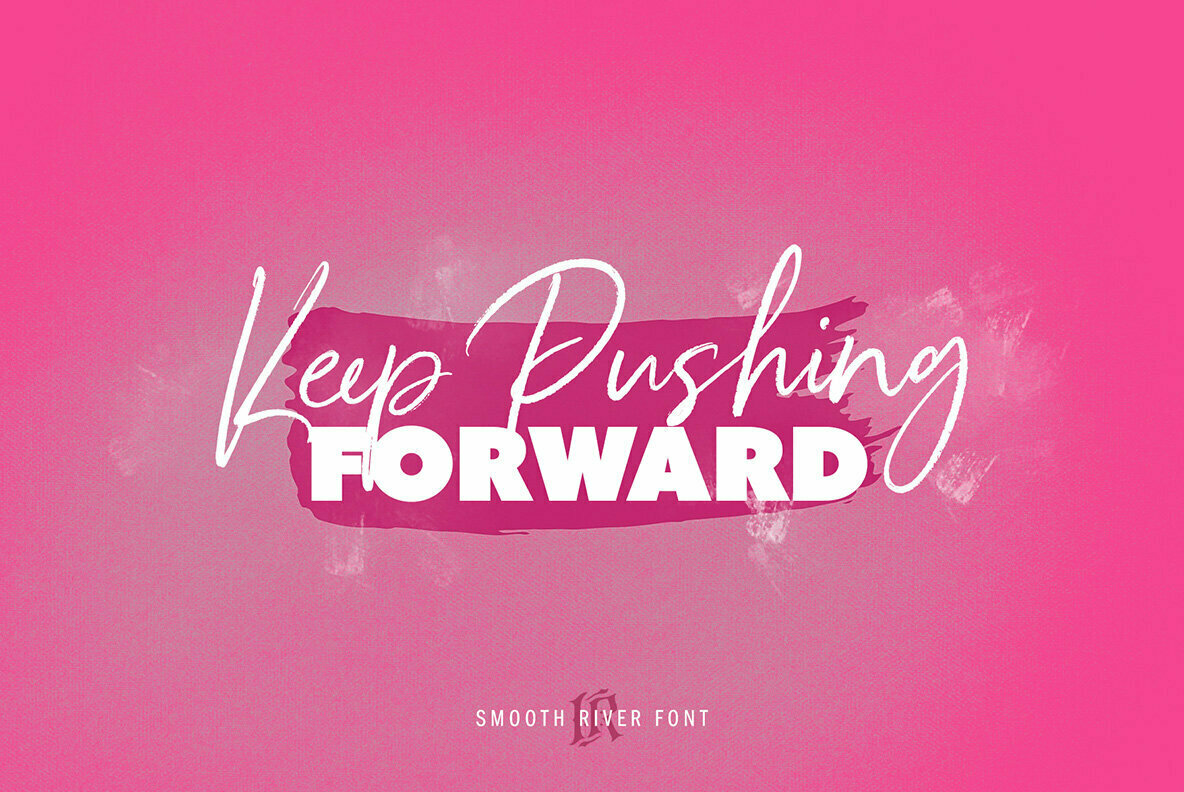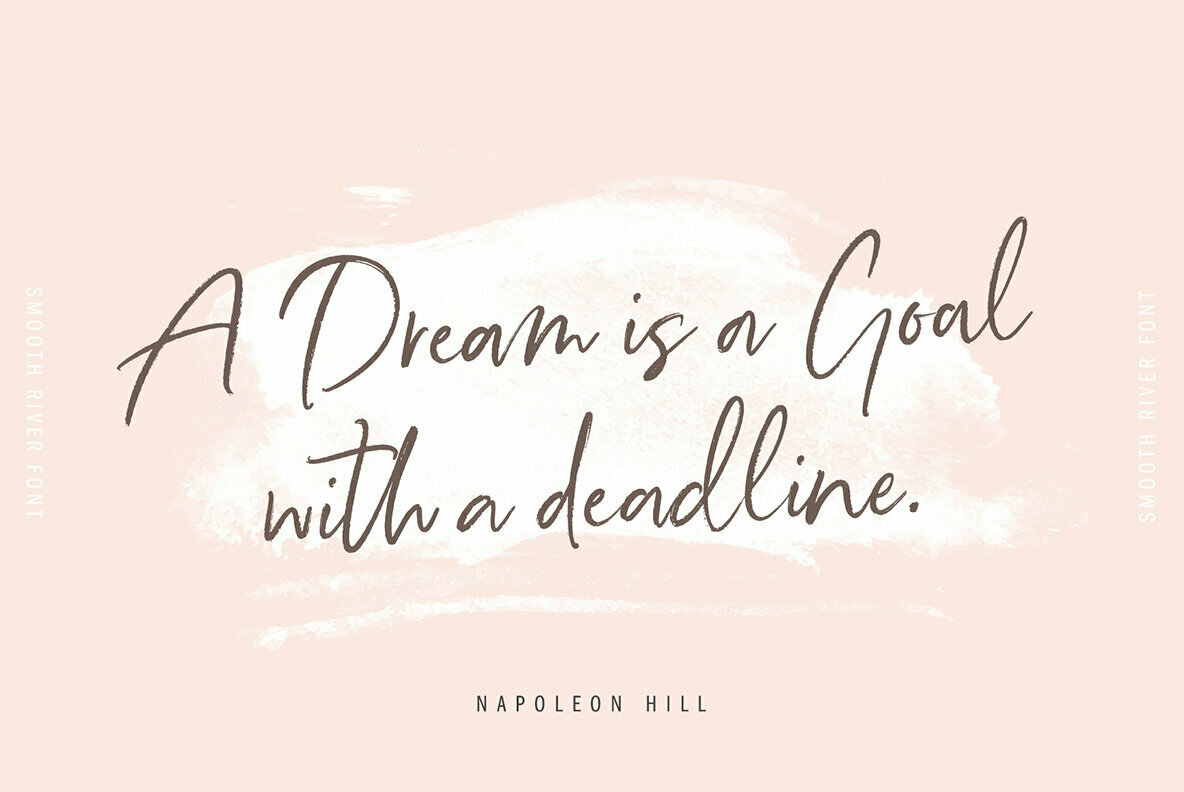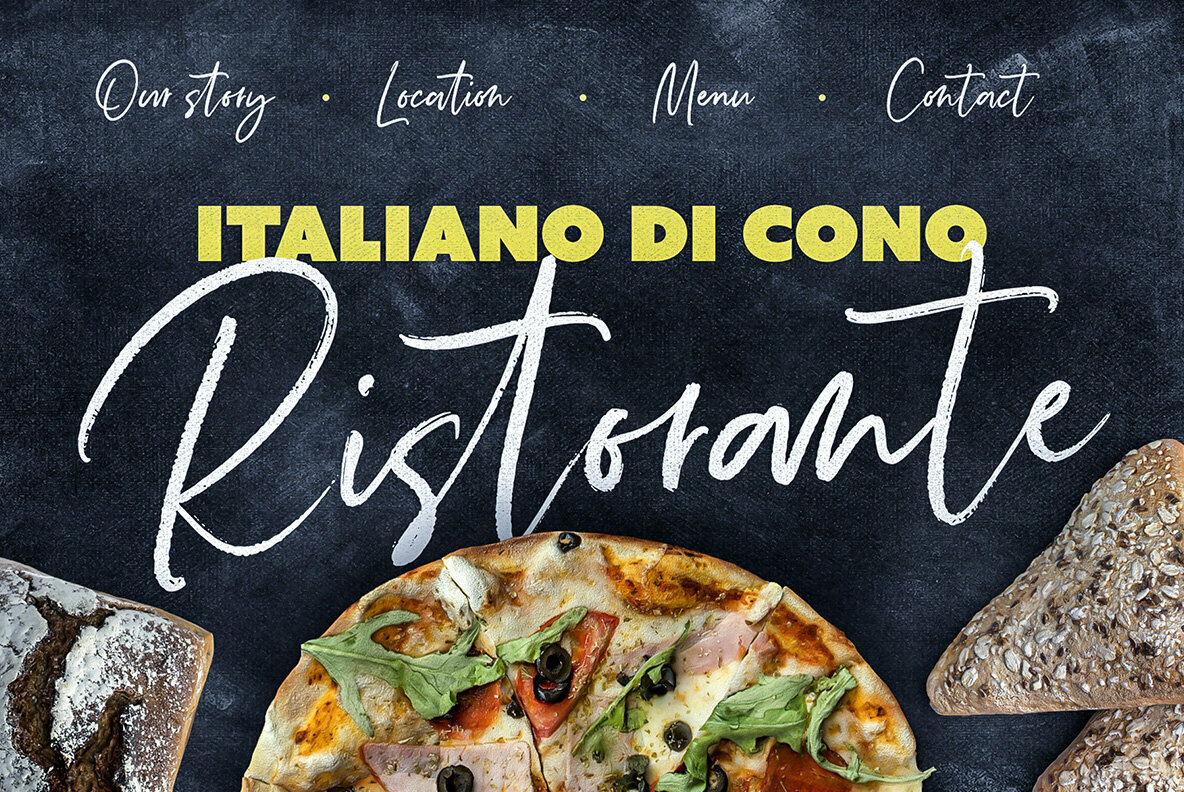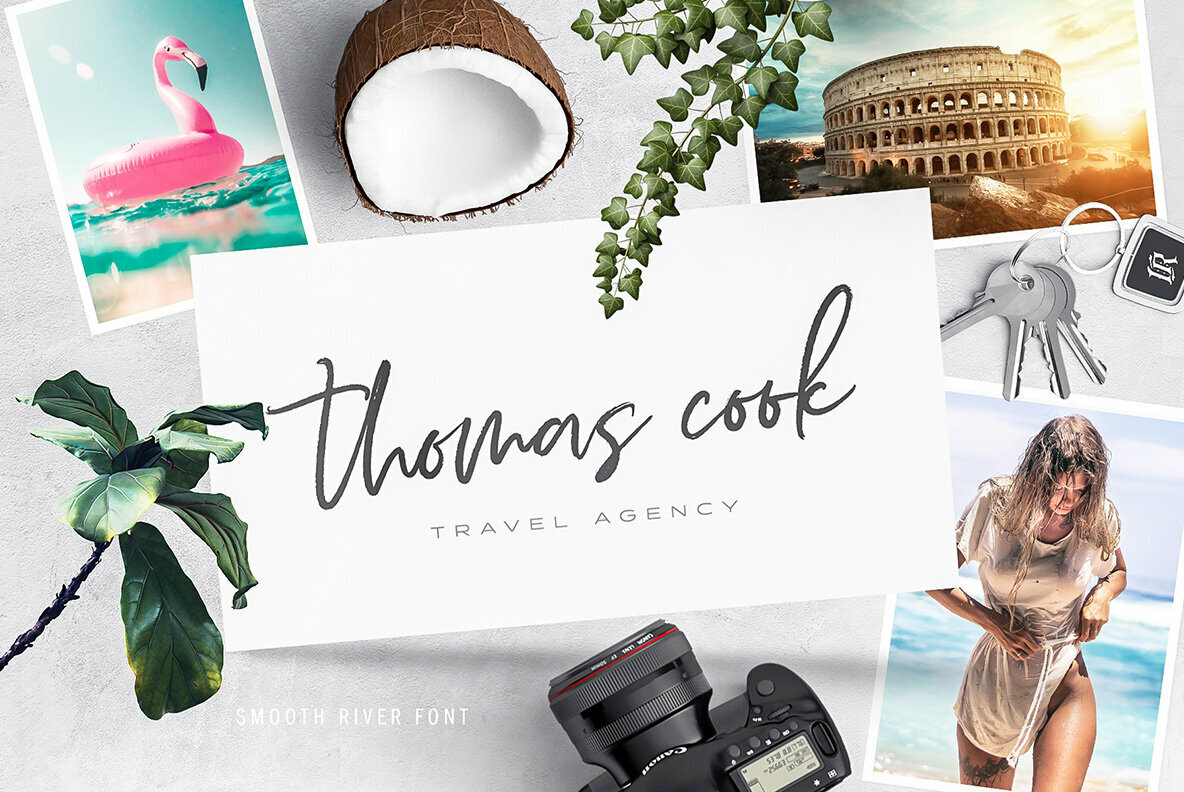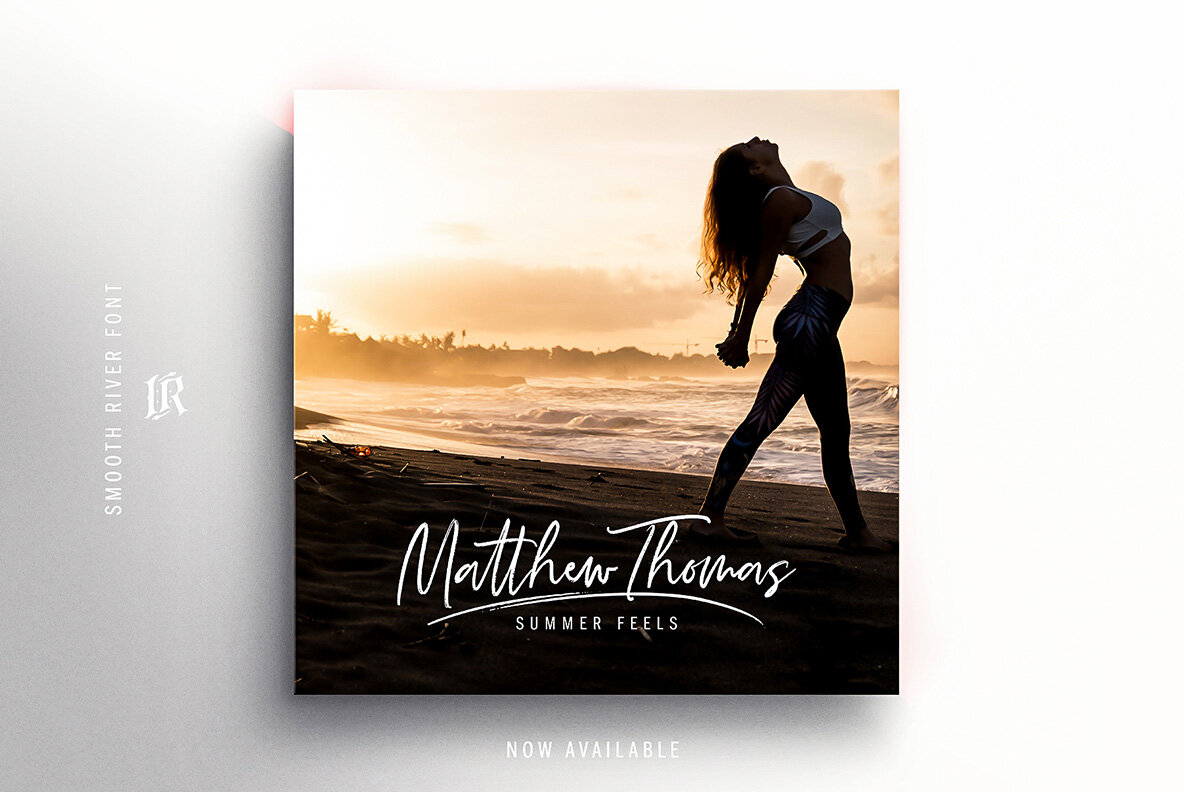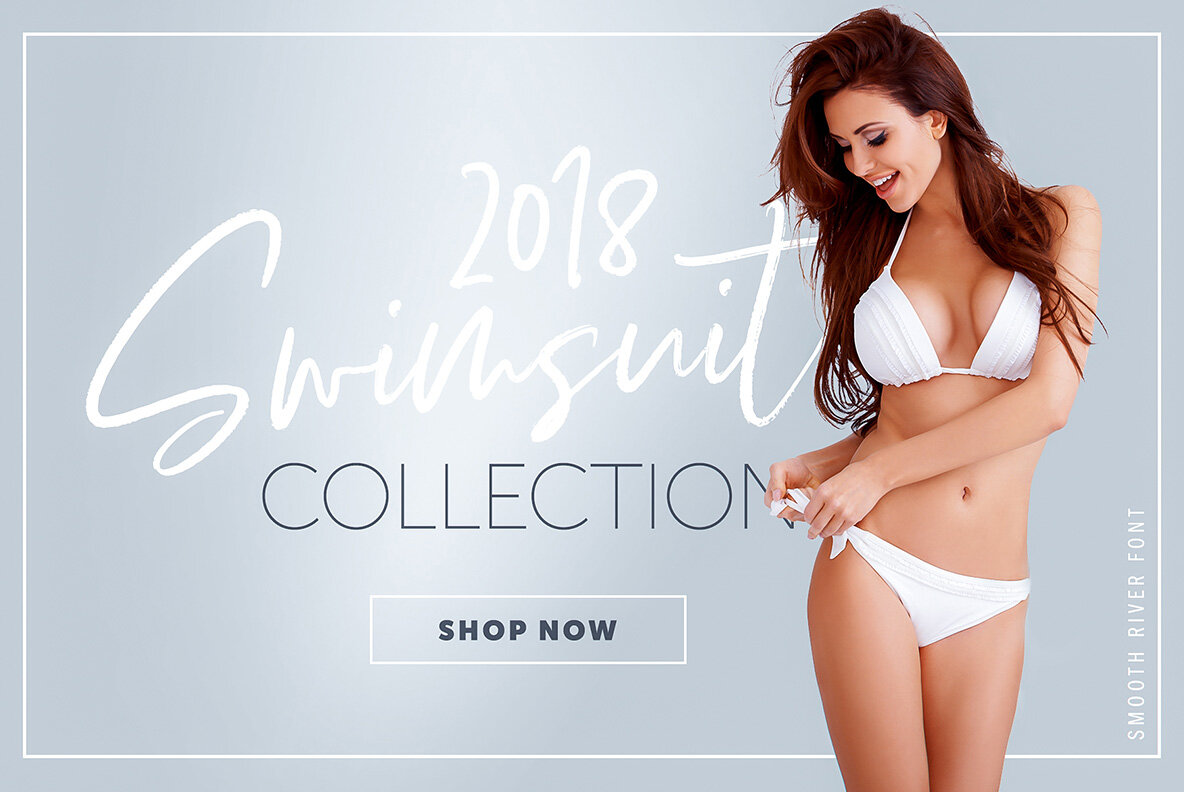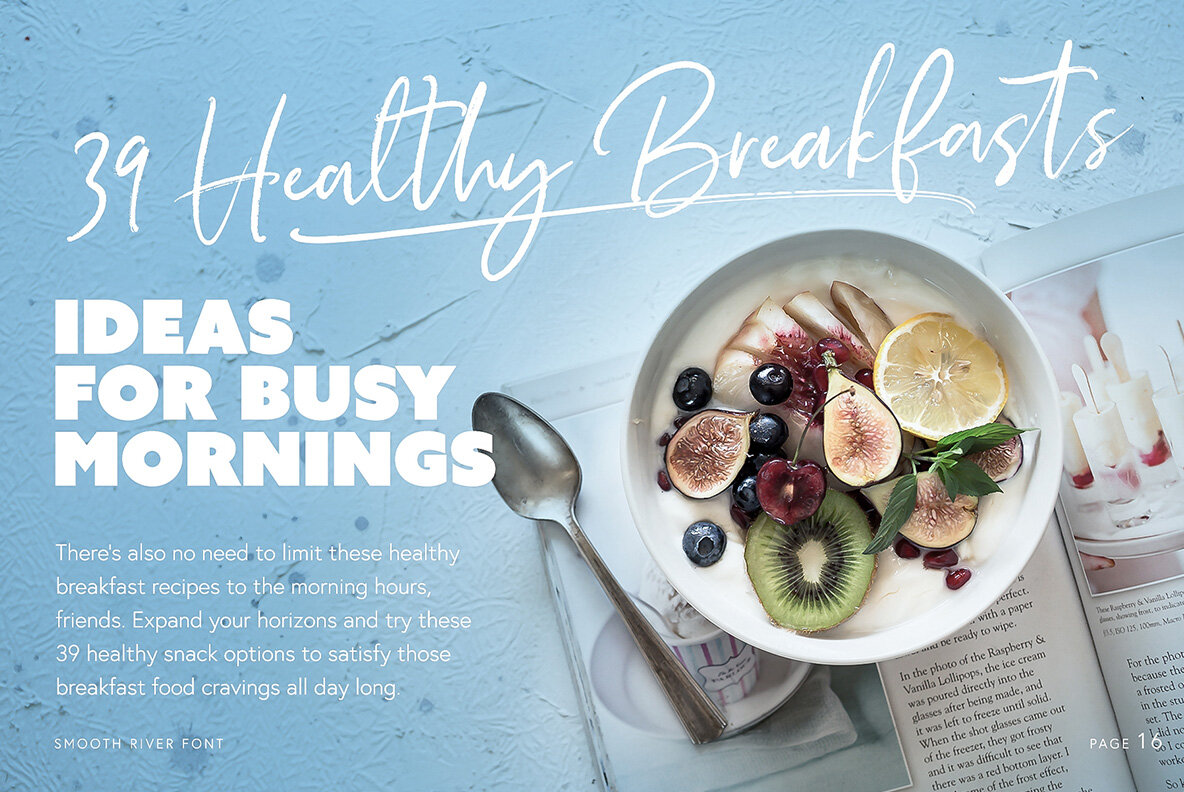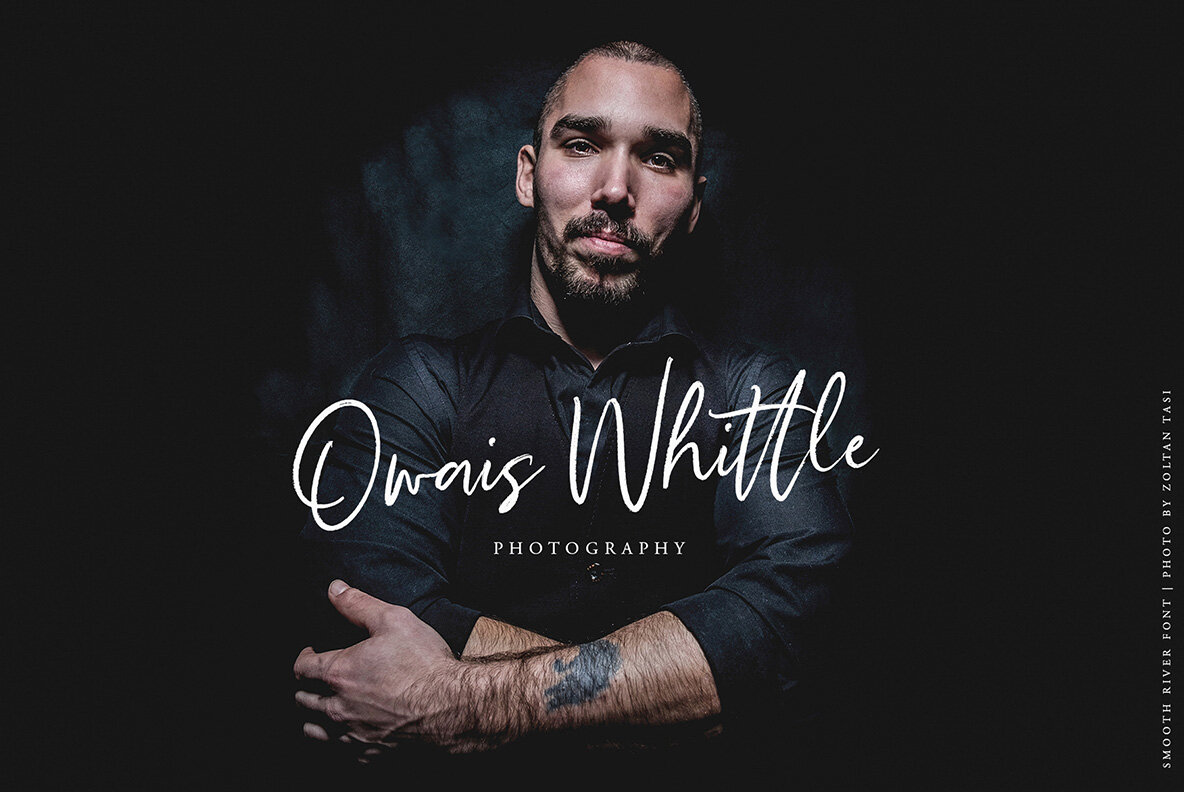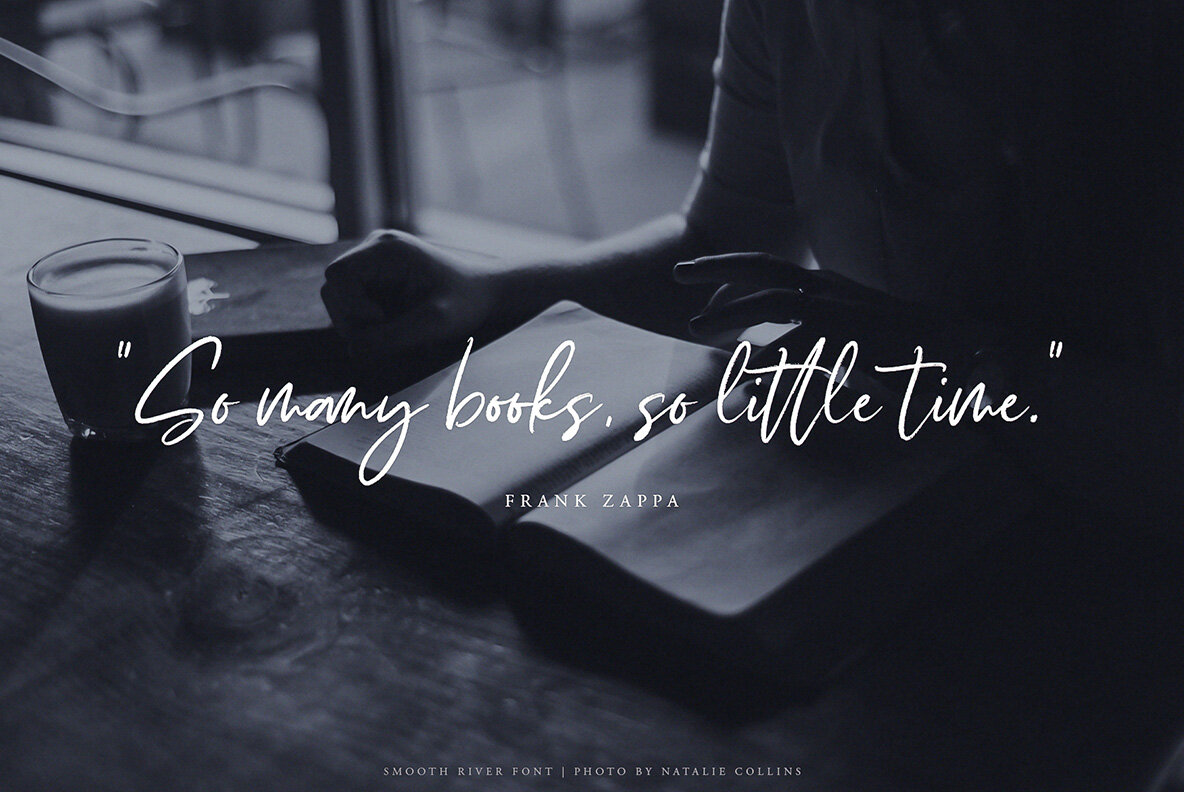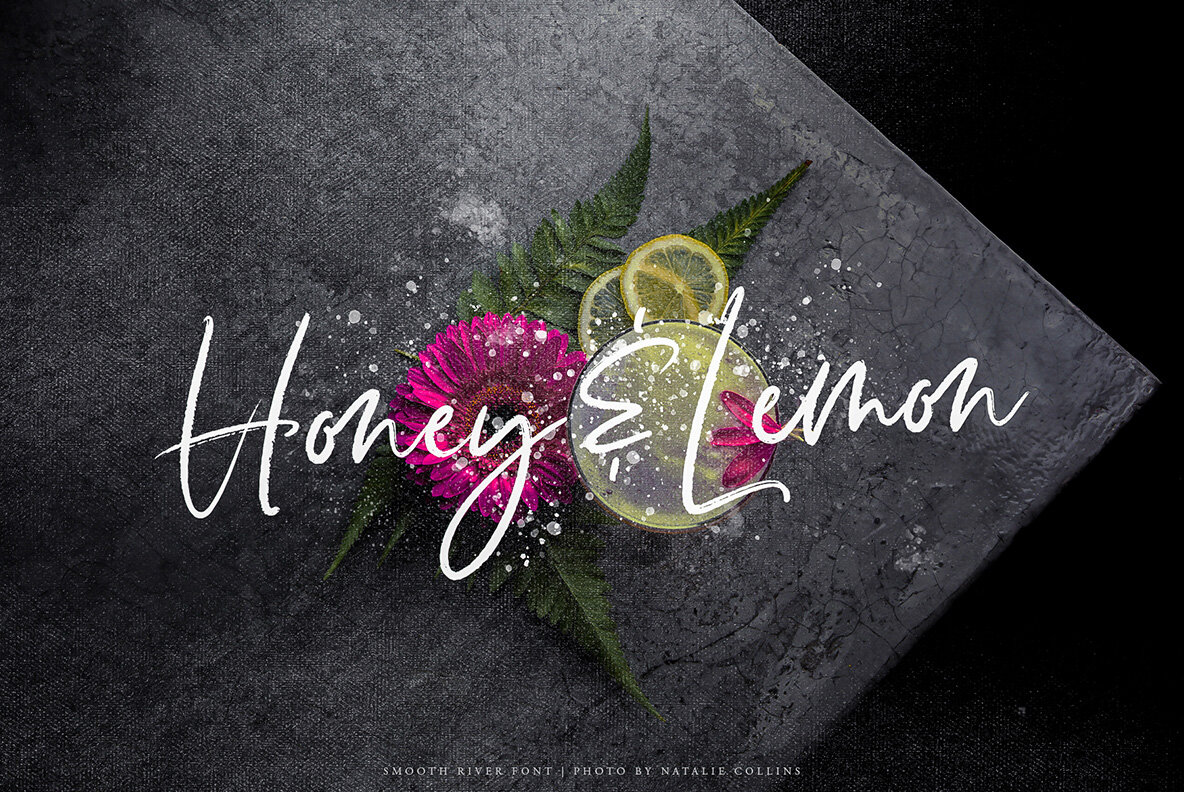
Smooth River Font
Smooth River is a hand lettered font with multilingual support. Is ideal for t-shirts, magazines, phone covers, social media, restaurant menus, greeting cards, invitations, weddings, headers and many more.
This brush font comes with a complete set of lowercase and uppercase characters, a large range of punctuation ligatures, numerals and and multilingual support.
- Smooth River is a set of Upper and Lowercase characters, numerals and lot of punctuation glyphs, 4 alternates for each character and 60 Ligatures.
- Smooth River Alt1 The original font, with an alternate set of uppercase and lowercase letters changed for the standard characters.
- Smooth River Alt2 The original font, with an alternate set of uppercase and lowercase letters changed for the standard characters.
- Smooth RiverAlt3 The original font, with an alternate set of uppercase and lowercase letters changed for the standard characters.
- Smooth River Alt4 The original font, with an alternate set of uppercase and lowercase letters changed for the standard characters.